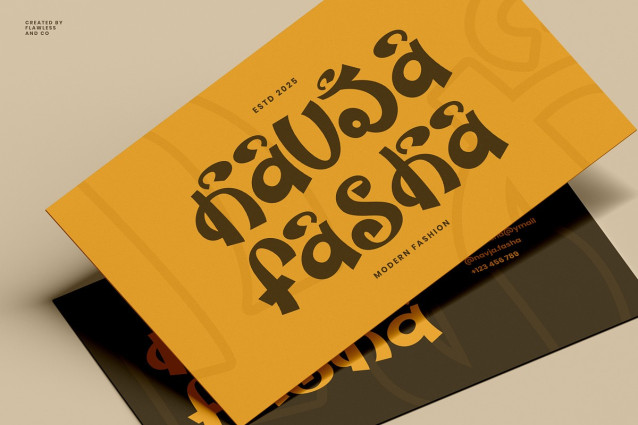
Jaisha Font
Jaisha Font is a unique Hindi display typeface inspired by traditional Indian culture and festive visuals. Featuring bold shapes, playful curves, and expressive letterforms, Jaisha brings a joyful and eye-catching character to any design. This font is perfect for headlines, posters, branding, packaging, event designs, and cultural projects that need a strong identity with an authentic Indian feel.